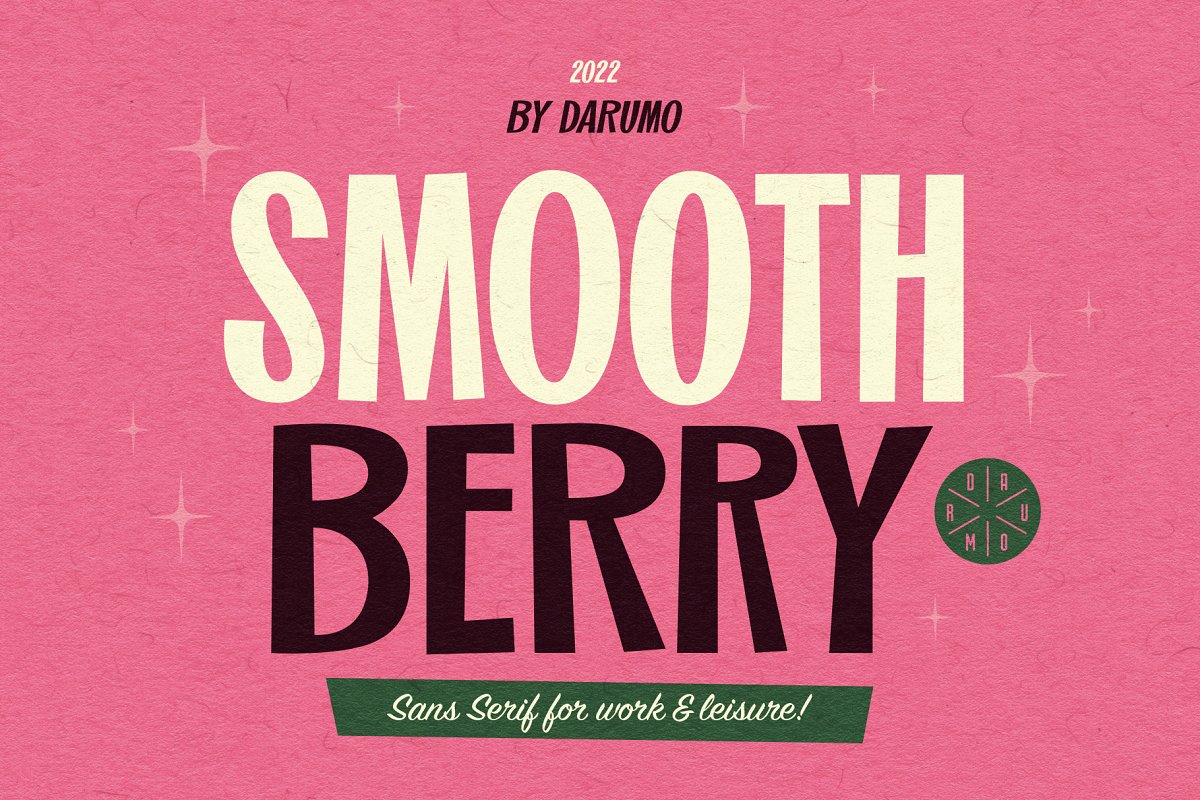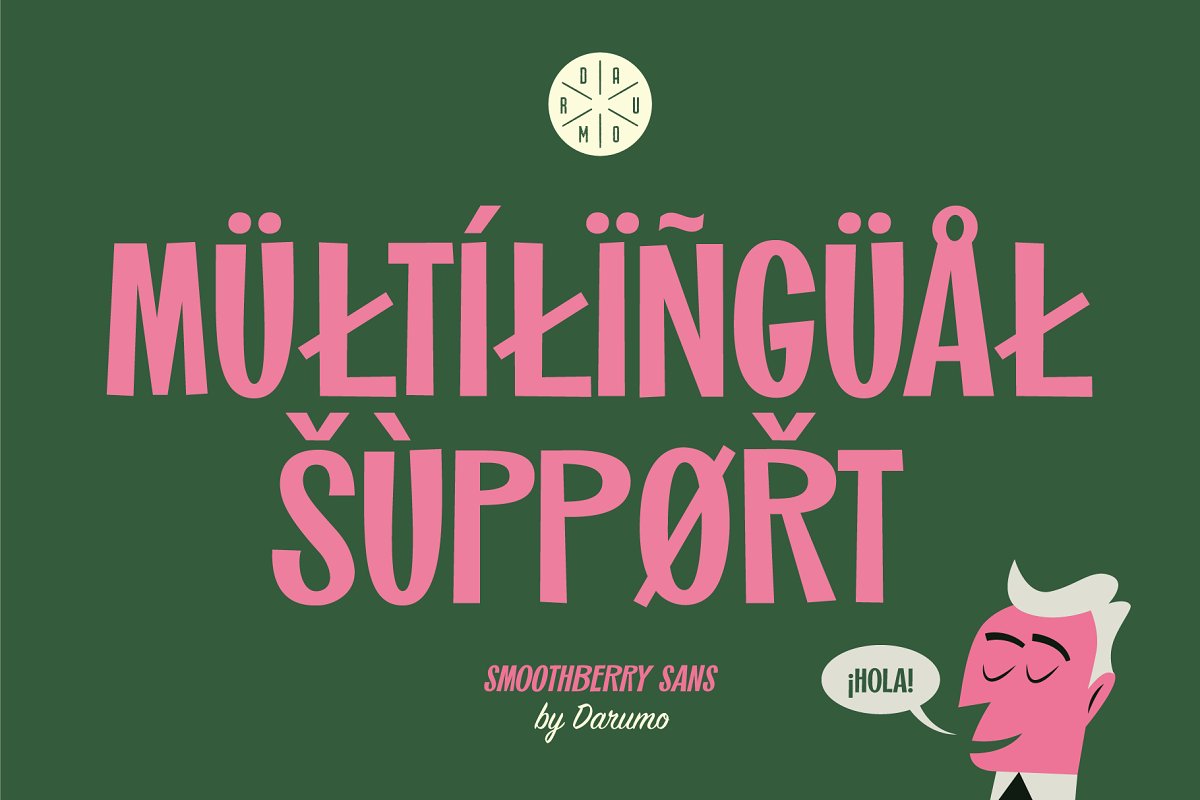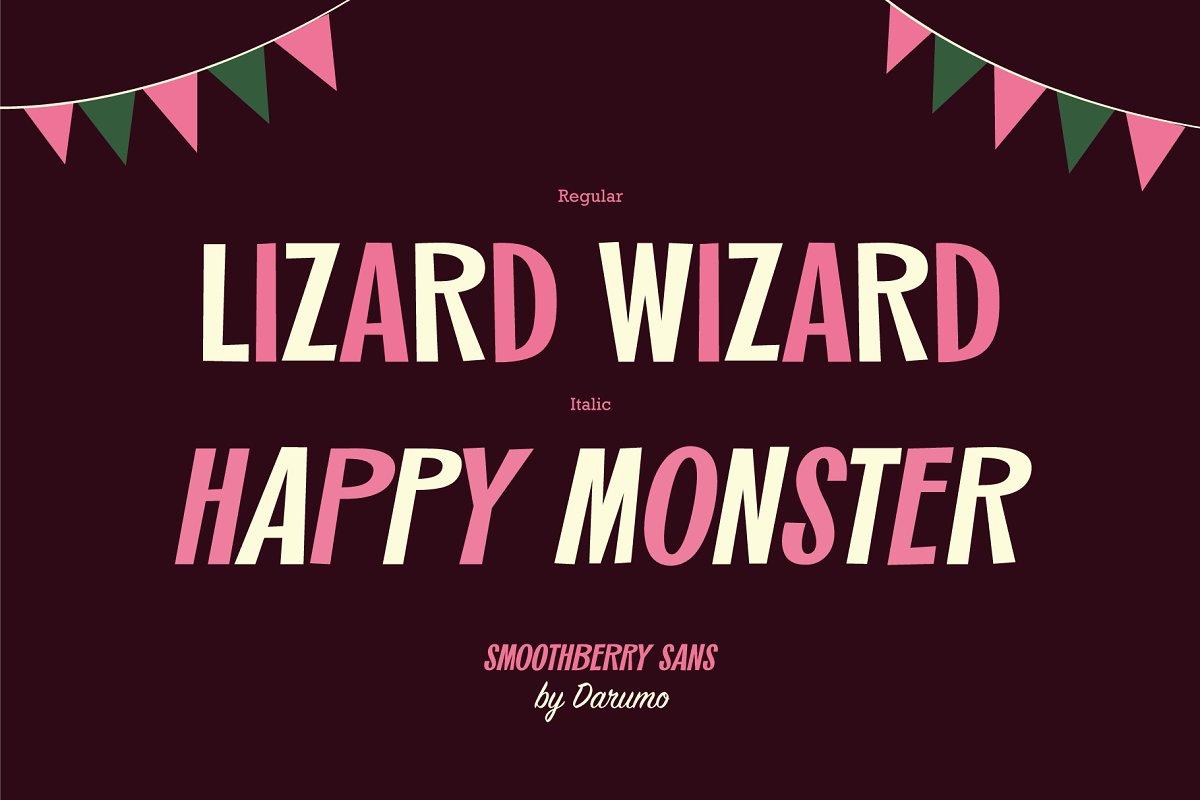
About the SmoothBerry | Playful Retro Font
Welcome to Darumo Shop!Introducing Smoothberry, a playful retro font, It’s inspired by a fabulous mid-century design, but also can be easily used in a modern context, This font is a great fit for beautiful headers, cozy event posters, and especially for Holiday greetings cards, Also, it works really well if you are designing any kind of product for kids